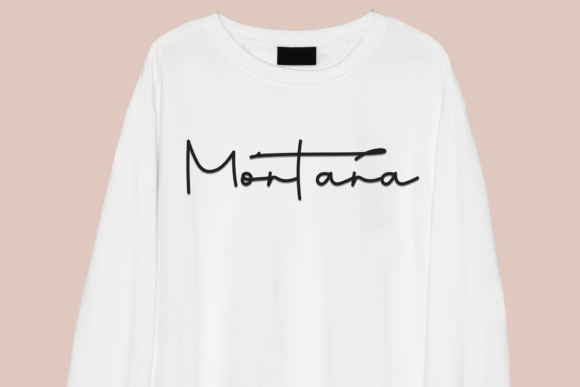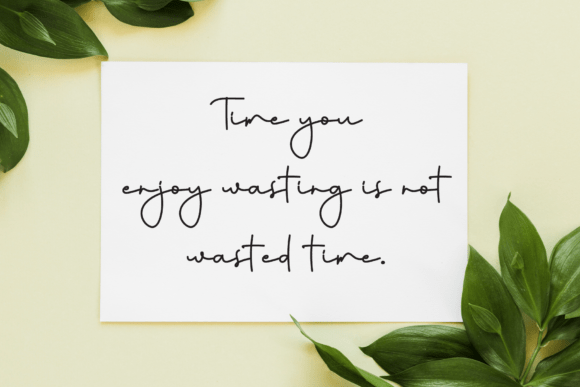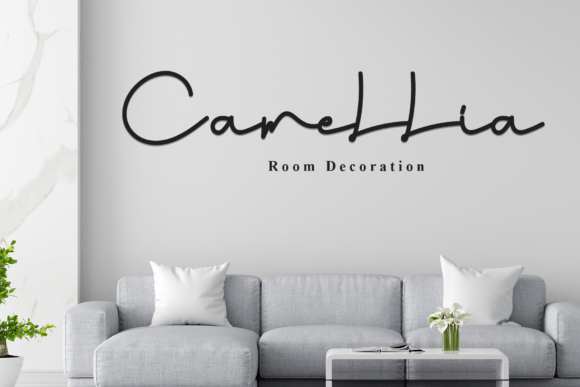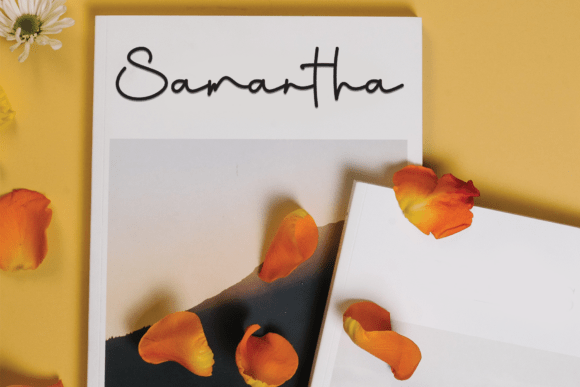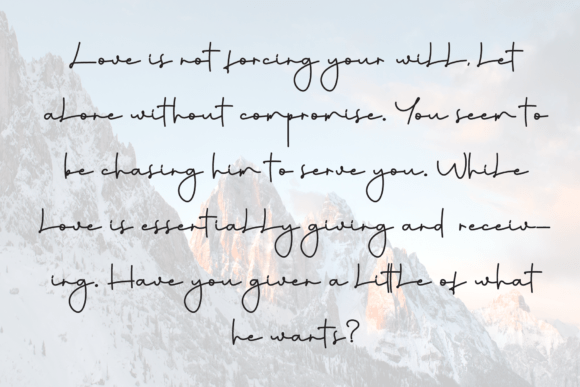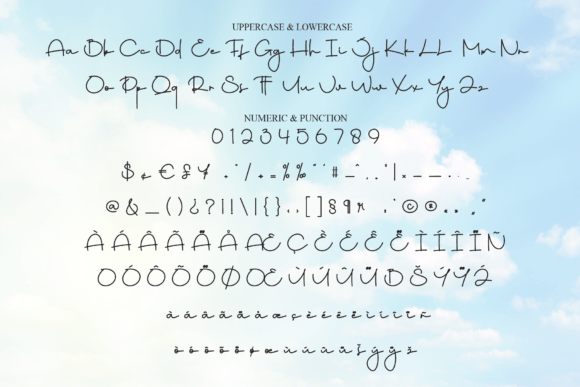
Introduction to Lightsunday Font
Have you ever stumbled upon a font that instantly sparks inspiration for your next creative project? For designers, discovering the perfect font can be a game-changer. It’s like stumbling upon a hidden gem that elevates your work from ordinary to extraordinary. For me, that moment came when I discovered the Lightsunday Font – a stylish handwritten script font that radiates fresh elegance and delicate charm.
As a designer, I can attest that finding high-quality fonts that fit your vision can be a challenge. That’s why I’m excited to share my enthusiasm for the Lightsunday Font, a valuable design resource that’s perfect for adding a soft, personal touch to your projects. With its flowing strokes and graceful curves, this lovely typeface evokes a sense of renewal, making it ideal for invitations, branding, and seasonal designs.
Key Features of Lightsunday Font
- High-quality design resource with a modern and elegant aesthetic, perfect for creative projects.
- Features a transparent background, allowing for seamless integration with your design.
- Includes a range of glyphs and characters, making it ideal for use in a variety of creative applications.
- Designed with a high resolution, ensuring crisp and clear text display, even at larger sizes.
- Lightweight and easy to use, making it a great addition to your design resource library.
- Supports a wide range of languages, including English, Spanish, French, and many more.
Honest Review: Lightsunday Font
One of the standout features of this font is its high-quality design. The clean lines and modern aesthetic make it perfect for a variety of creative projects. I’ve used it for everything from blog posts to social media graphics, and it always looks professional and polished.
Here are some of the things that work well: ✨
- High-quality design with a modern aesthetic
- Perfect for creative projects that require a professional look
- Transparent background makes it easy to use on any design
However, I did encounter some limitations: ⚠️
- The character set is limited, which can make it difficult to use for complex text
Overall, I’m really impressed with the Lightsunday Font. It’s a great addition to any designer’s toolkit, and I highly recommend it for anyone looking for a high-quality, modern font.
The Lightsunday Font is ideal for a variety of design projects, including wedding invitations, branding materials, and editorial designs. Its elegant and sophisticated style makes it perfect for use in creative projects that require a touch of luxury and sophistication.